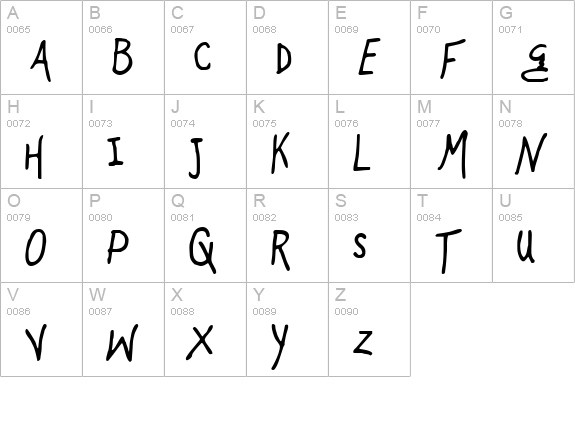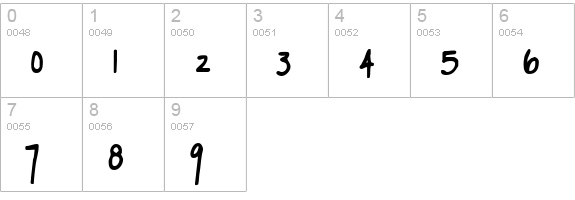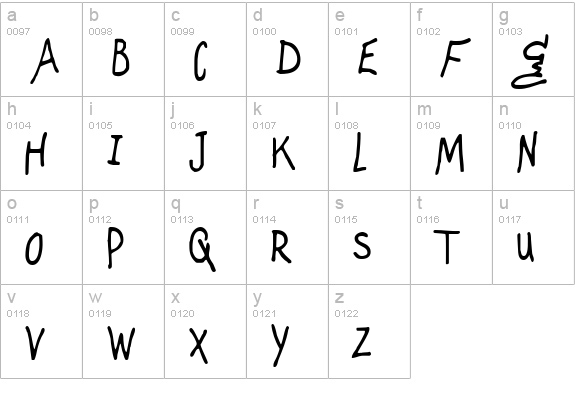
Mugnuts Font Details
Introducing Mugnuts font, a quirky and playful typeface perfect for adding a touch of fun to your designs. With its unique character shapes and charming appeal, Mugnuts is sure to grab attention and make a statement. This font is ideal for a variety of projects, from branding to social media graphics to product packaging. The best part? Mugnuts font is completely free to download at FontsMarket.com, making it accessible to everyone looking to add a little bit of personality to their creations. Whether you're a designer, a business owner, or just someone who loves experimenting with different fonts, Mugnuts is a fantastic choice that won't break the bank. So go ahead and give Mugnuts font a try today - you won't be disappointed! Let your creativity shine with this delightful and eye-catching typeface that is sure to make your designs stand out from the crowd.